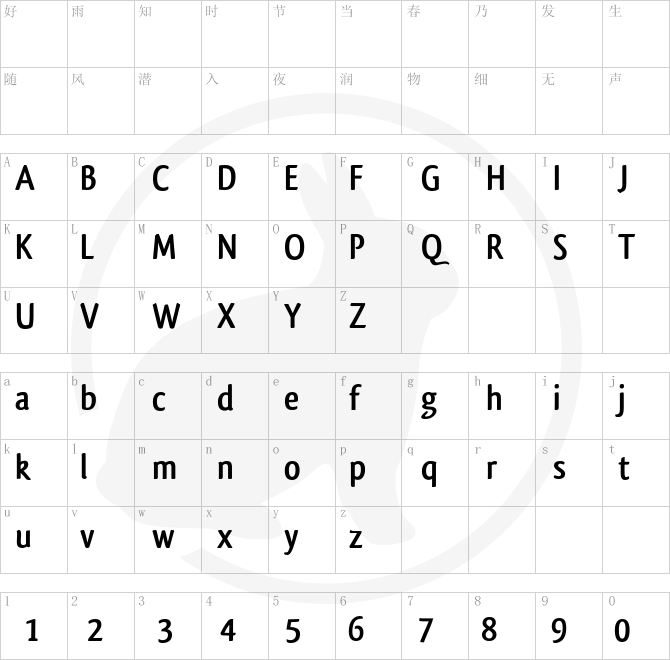
- Font Name:Qlassik Bold
Qlassik-Bold.ttf is a very beautiful artistic font, Qlassik-Bold.ttf is widely used in the design and printing of various books and pictures,Qlassik-Bold.ttf has a strong visual impact,Qlassik-Bold.ttf is a commonly used font in newspapers, magazines and books, and is used in posters, e-commerce Poster design, store design, logo design, font design and other fields.Qlassik-Bold.